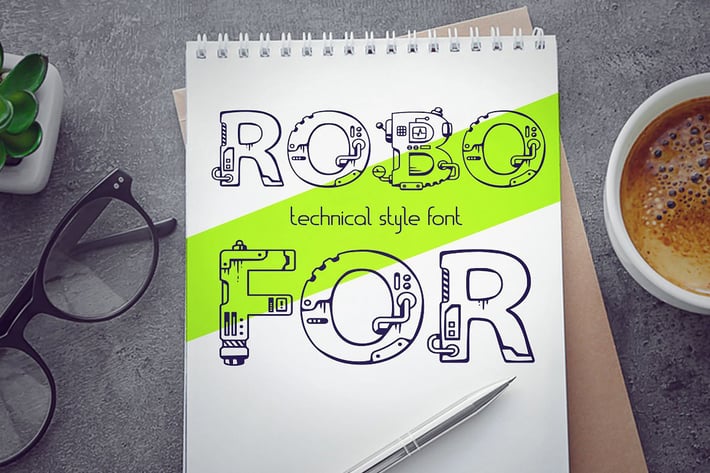
Robofor_mechanical engineering font
Robofor is a very unusual font for headings consisting only of capital letters of the Latin alphabet, the design is made in the style of mechanisms. This font is good to use in combination with a thin font for creating different kinds of designs.
- uppercase letters